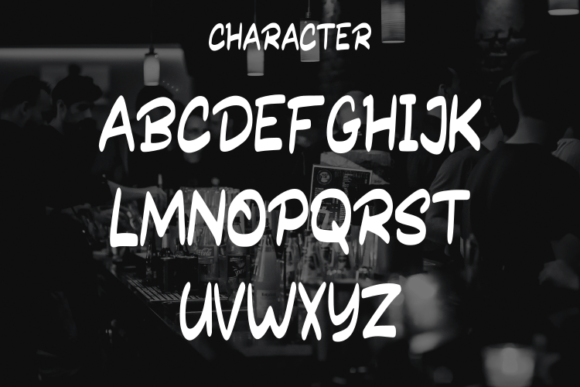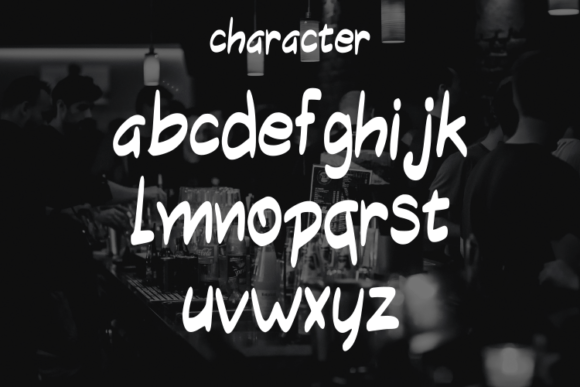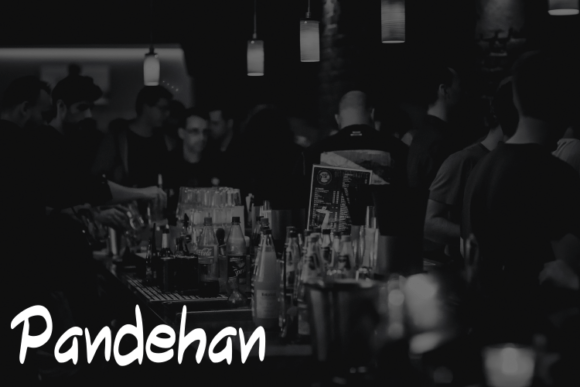
Pandehan Font
About Pandehan Font
Pandehan is a script typeface that embodies a simple yet modern style, making it a versatile choice for a variety of design applications. Its clean and contemporary appearance is particularly well-suited for creating an elegant and luxurious aesthetic across different projects. Whether you’re designing logos, crafting titles for books or movies, establishing a presence for fashion brands, curating stylish magazines, enhancing clothing labels, creating distinctive fonts, or adding flair to quotes, Pandehan provides a sophisticated foundation.
The simplicity of Pandehan contributes to a timeless quality that aligns well with both elegance and modernity. Its sleek design ensures that it can seamlessly adapt to diverse design contexts, allowing for a cohesive and polished look across various applications.
Pandehan’s script nature adds a touch of personalized and handcrafted charm to your designs. Whether used for logos or titles, it brings a unique and stylish element that enhances the overall visual appeal. Its modern look ensures that it remains on-trend and relevant in contemporary design landscapes.
In summary, Pandehan is more than just a script typeface; it’s a design tool that combines simplicity and modernity to evoke an elegant and luxurious vibe. Embrace its versatility to create impactful and visually appealing content across a range of creative projects.